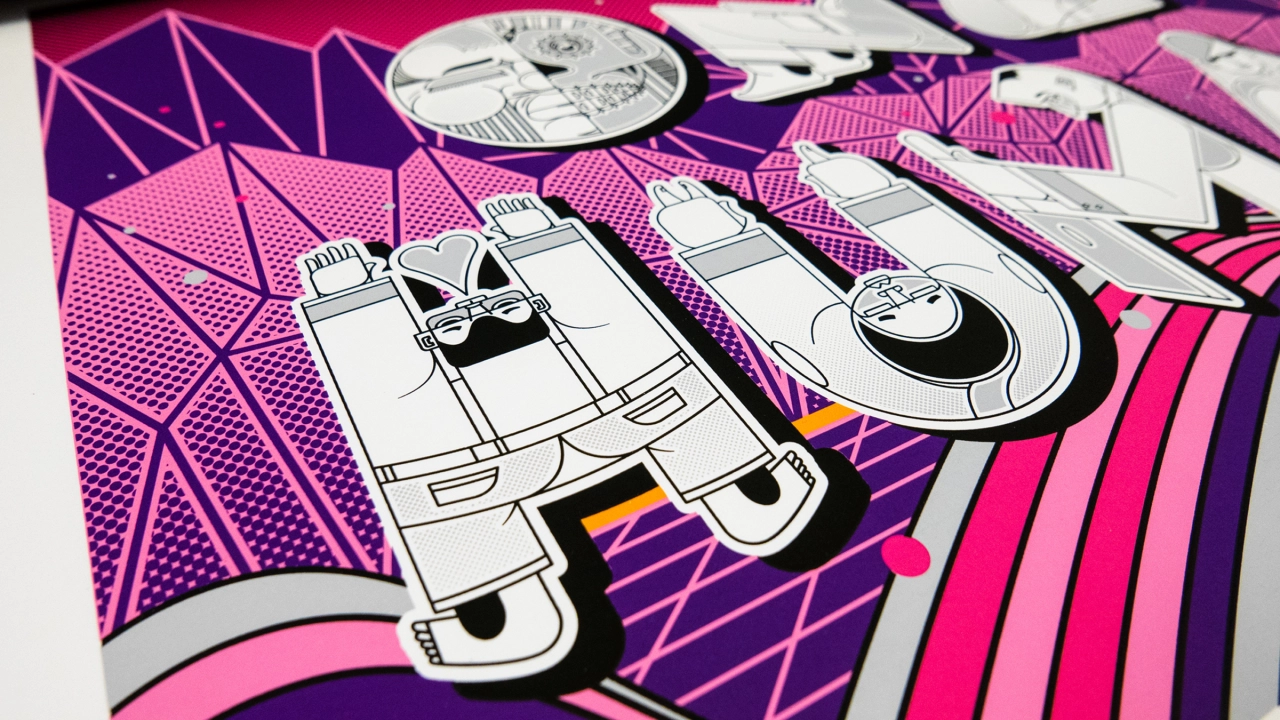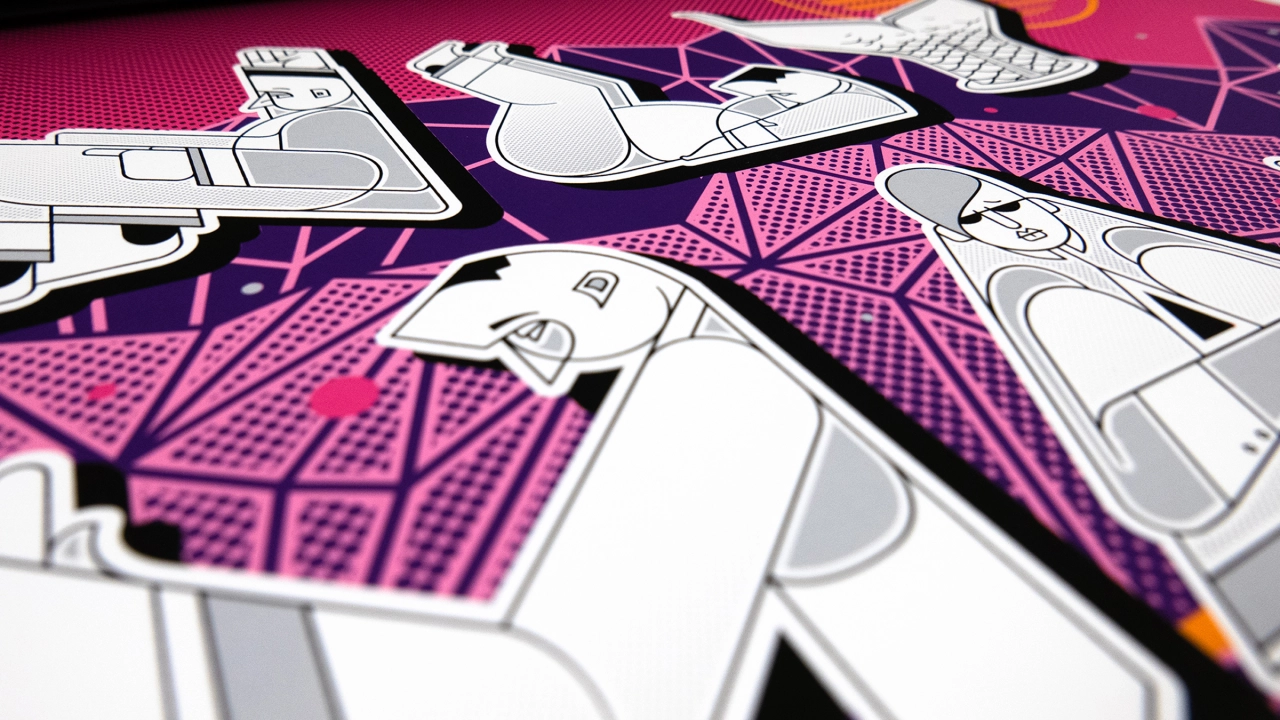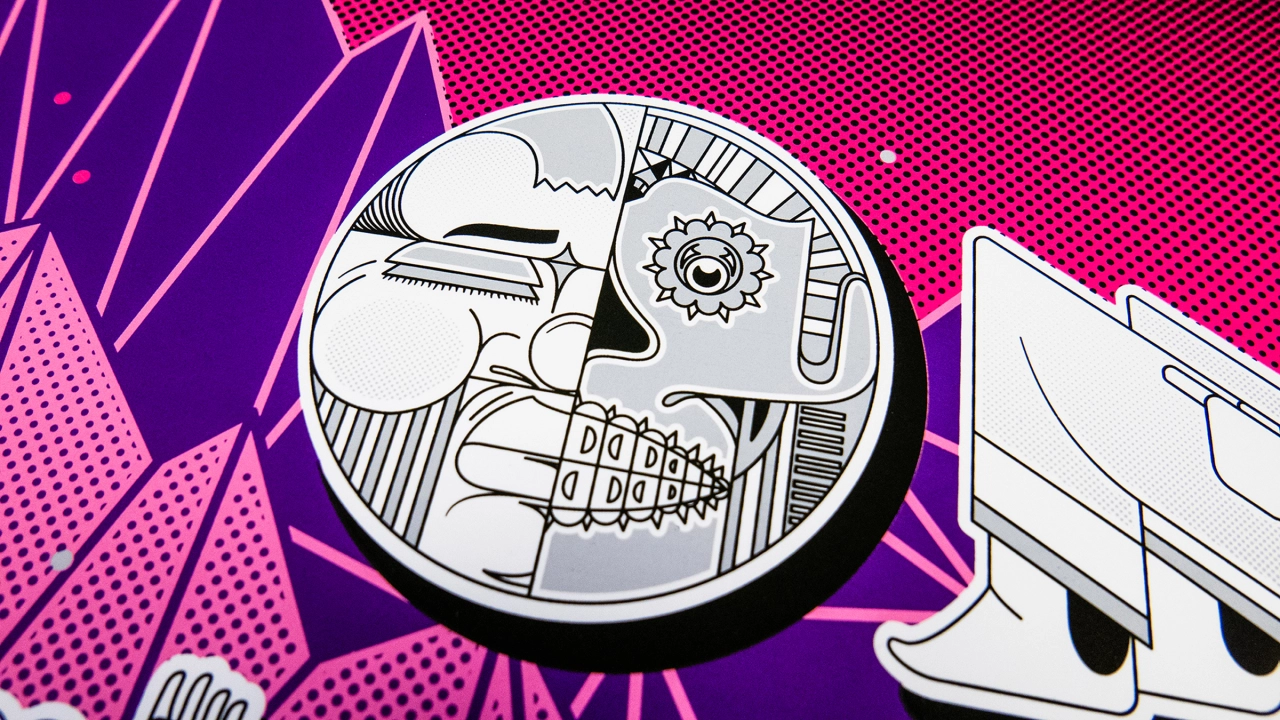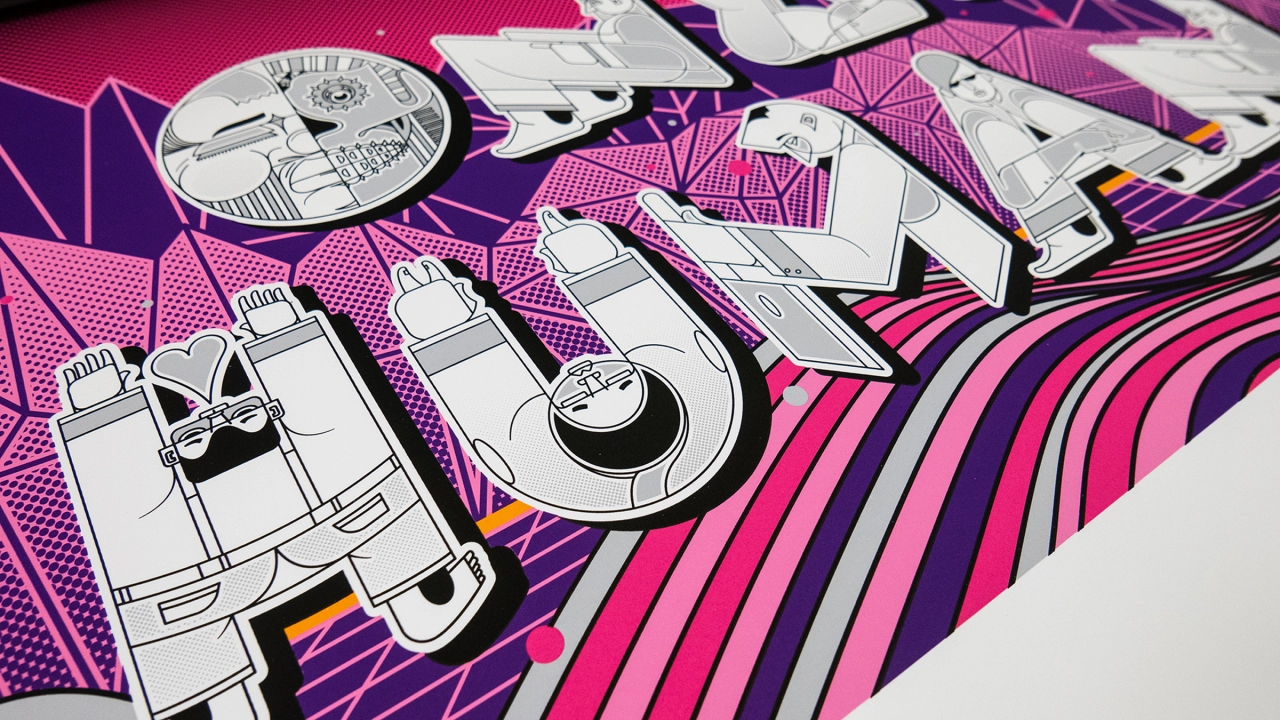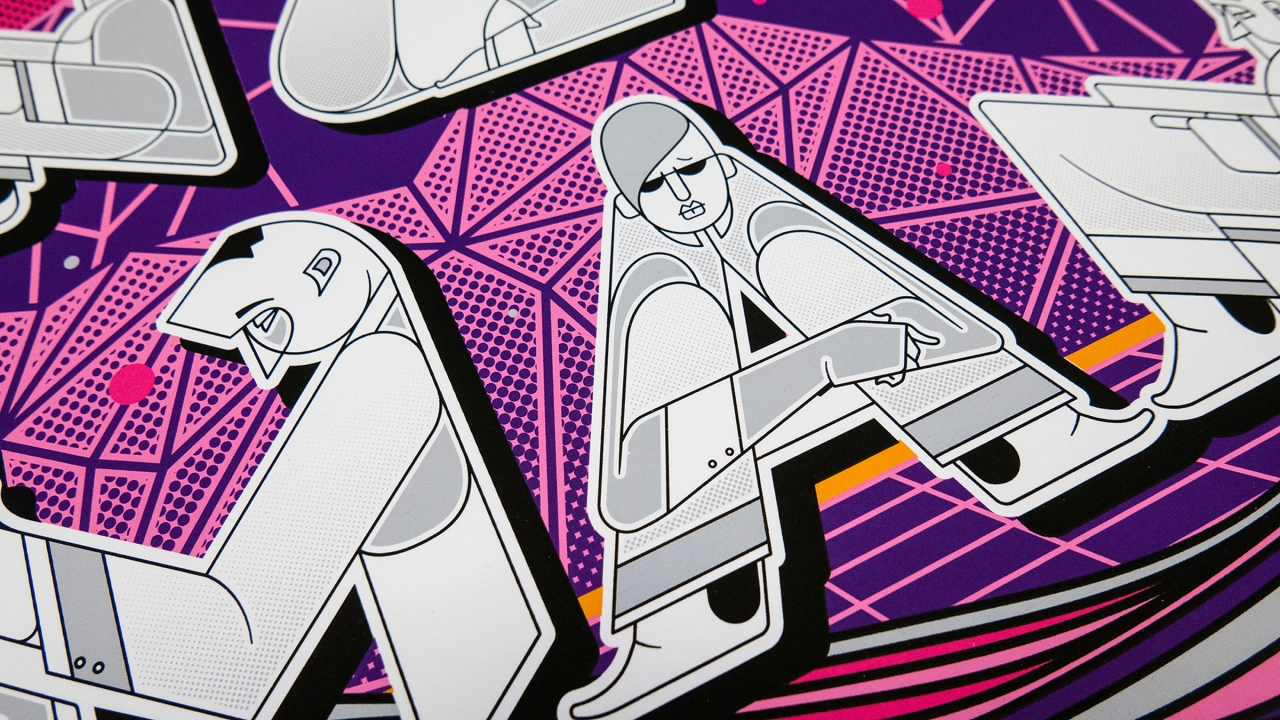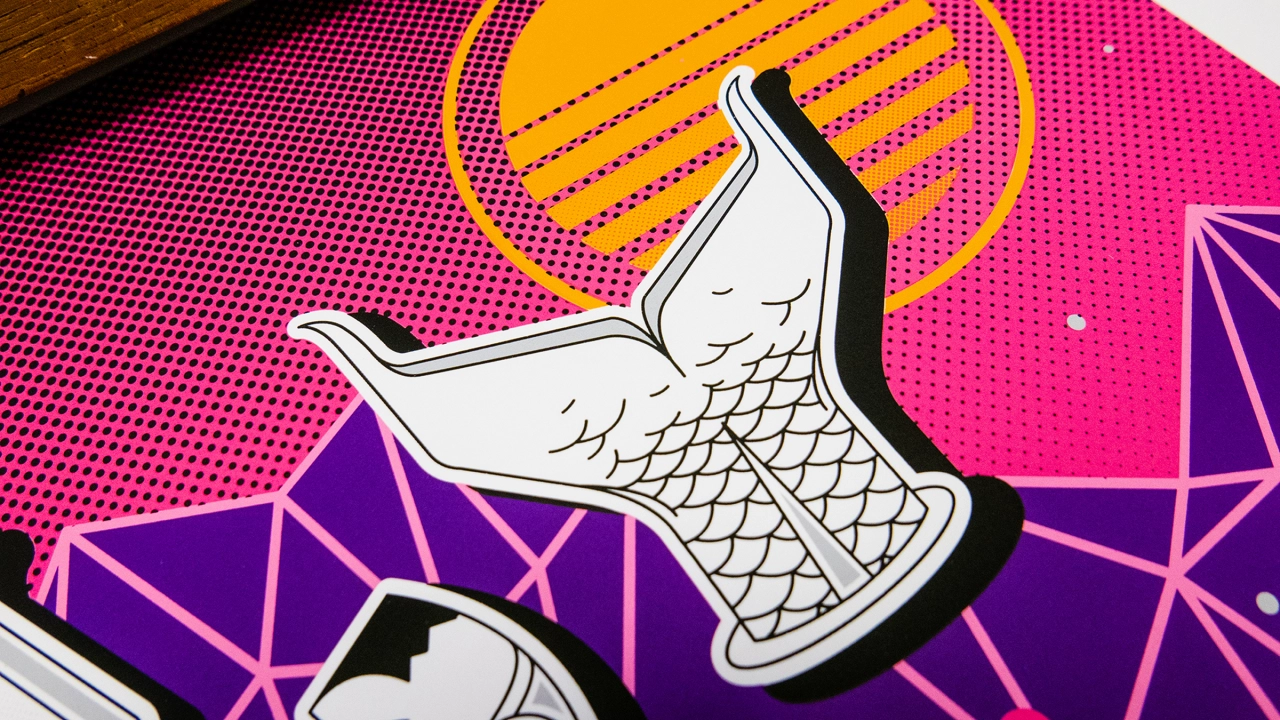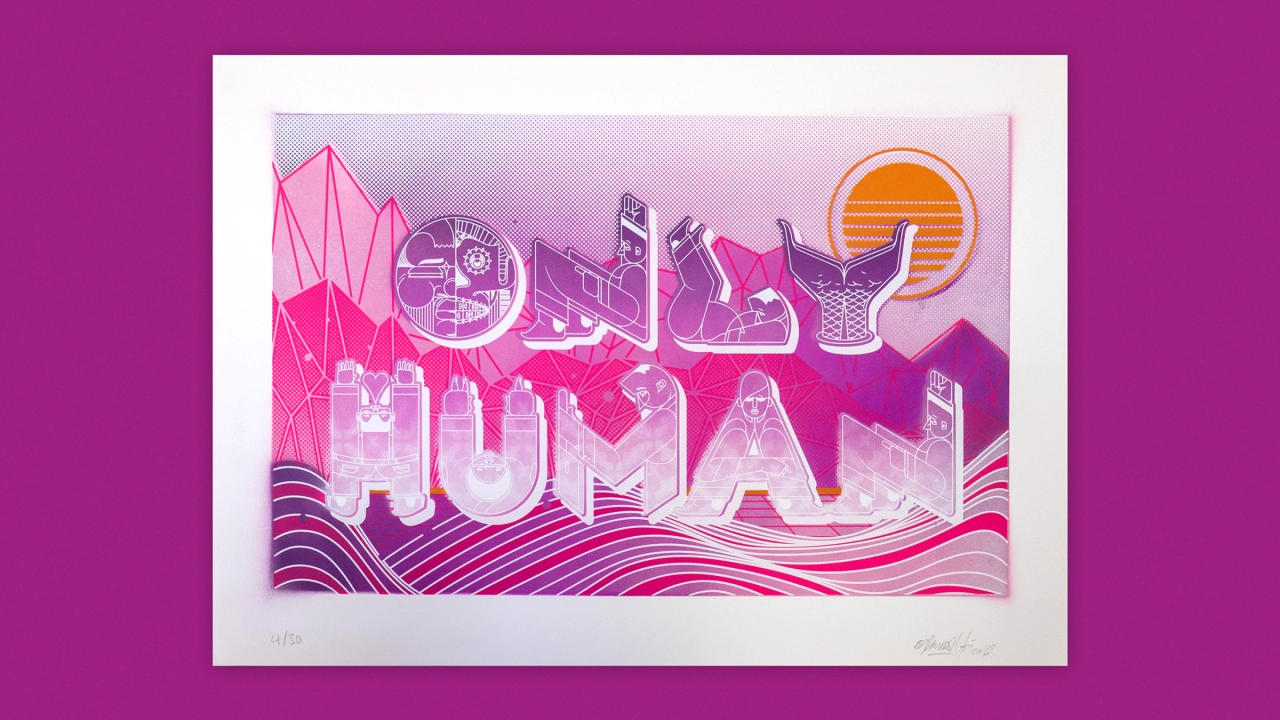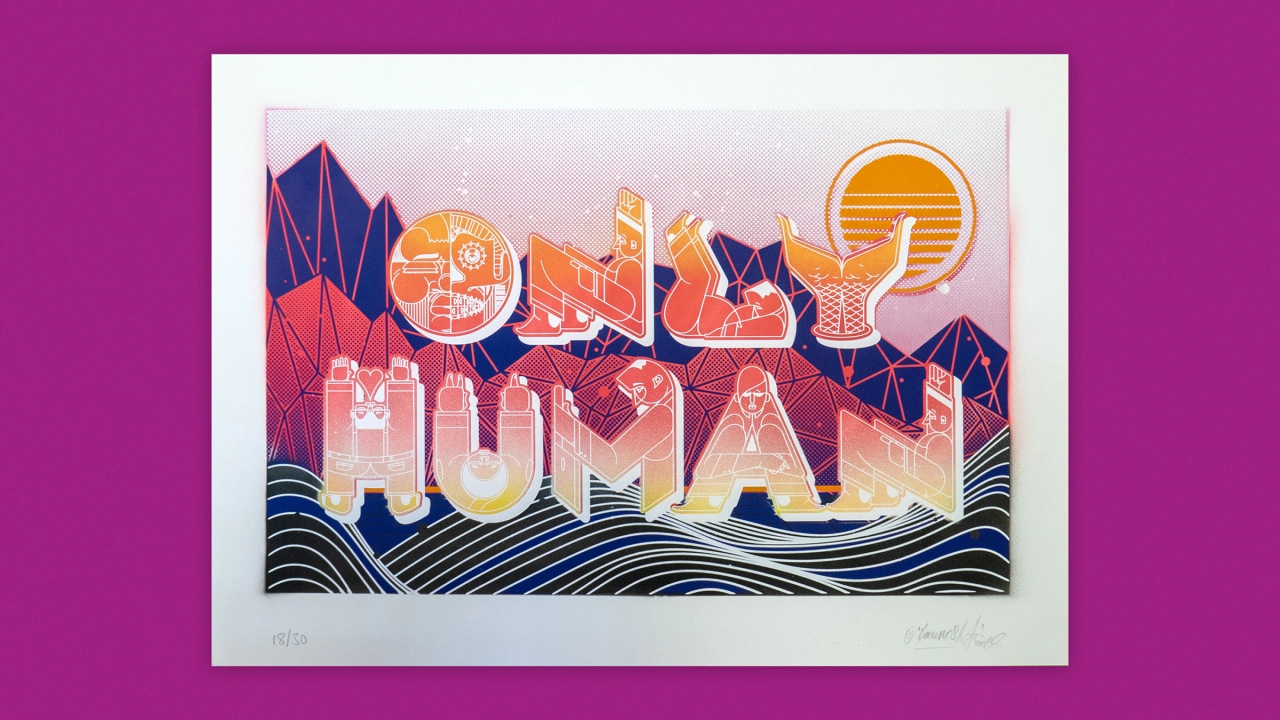
Ben Eine collaborates with Hownosm to create Spirit, a new font made up of people and creatures
London letterform artist Ben Eine has collaborated with New York twins Hownosm to release a new font called Spirit, exploring what it's like to be "alive and human".
Launched under Eine's collaborative studio OurTypes, there's also a limited edition print, Only Human, showcasing the brother's new type, which has an alphabet based on their unique, intricate characters.
Otherwise known as Raoul and Davide Perré, aka How and Nosm, they were born in Spain but have been living in New York since 1999. Known for their large-scale, fine art murals, Hownosm have painted in over 70 countries and earnt their graffiti stripes painting trains together back in the '90s.
Speaking of the project, How and Nosm said: "The reason we haven't made many prints during our 30-year career is that we want each one to be very different from the last. Our first was via Faile's Papermonster. It was based on a painting the late Tony Goldman acquired. Our second was a series of monoprints made with the prestigious Pace Prints in New York.
"So when OurTypes and Ben Eine reached out to collaborate, we loved the idea of fusing letters with our signature style to create a font and print. It is a unique concept, and we haven't seen anything similar. So with this HowNosm print, you will get a piece of our extensive history in the graffiti movement as well as a piece of our current explorations with fine art."
Ben Eine adds: "Like many street artists, Hownosm has a background in graffiti which, however unorthodox, is a form of typography. It was an honour to be part of the creative process that saw them revisiting type to create their own font."